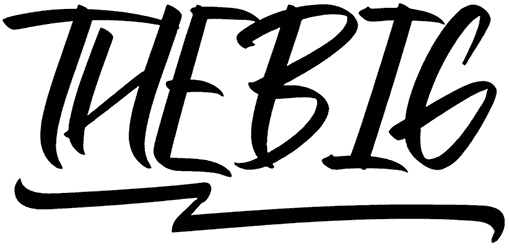
Thebig Font
Thebig font with crazy handwritten styles of uppercase lettering does not support lowercase letters and numbers. Adventurous, while the minimal appearance of the font makes it multi-task and appropriate for a wide range of purposes.
The brush font with a casual touch is perfect for flyers, greeting cards, and friendly events. Off-road car owners can count on this font for designing their cars, too. If you are seeking a modern and popular font, it will be the best choice.